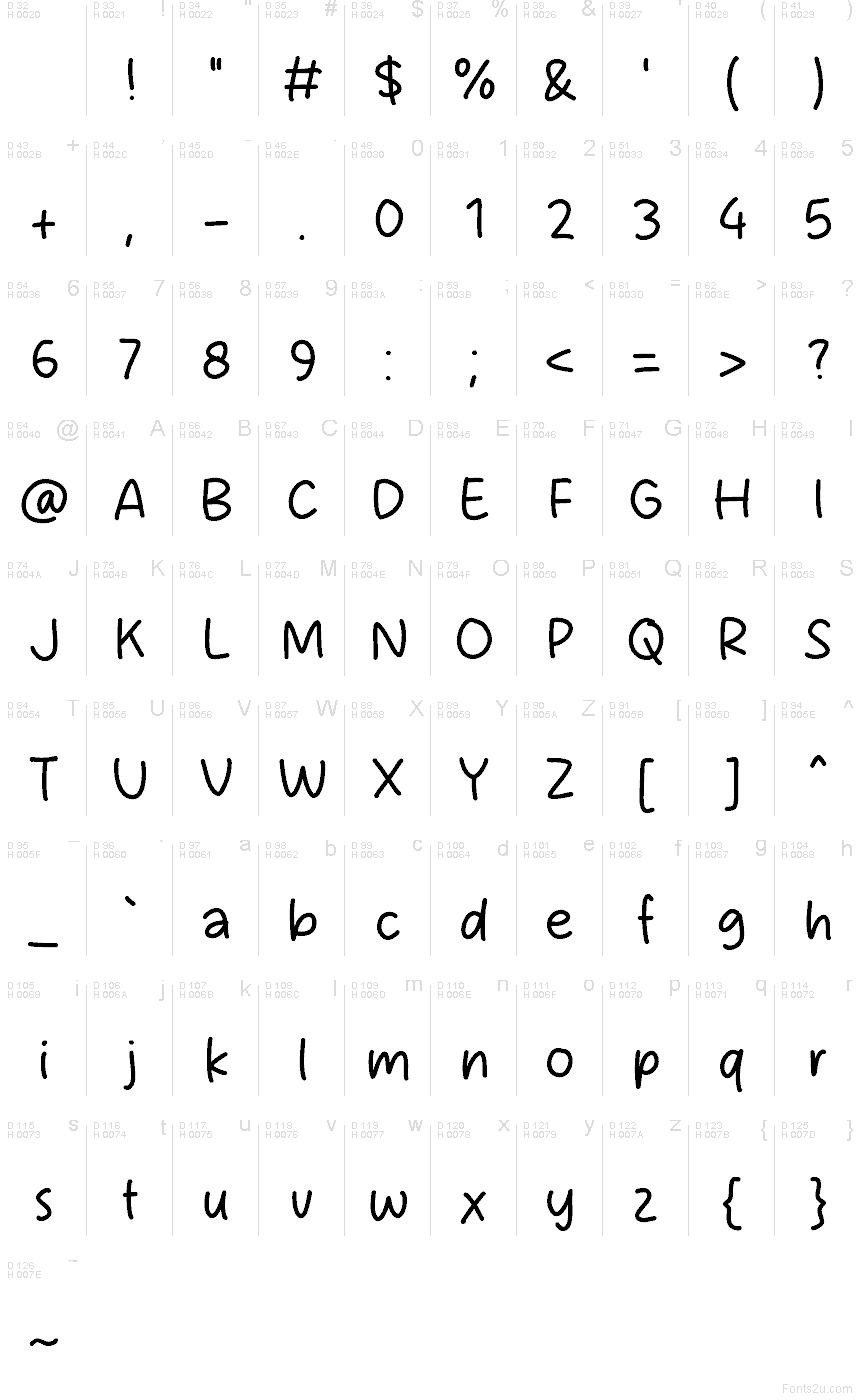
Honey Brown
Honey Brown font by MJType is a free handwritten font that finally hits that sweet spot between casual and clean. Its rounded strokes feel like smooth marker on paper—friendly and approachable—yet the letters stay even, open, and easy to read at a glance. The gentle bounce and subtle tilt give it warmth without getting messy or childish, making it a reliable choice when you need handwriting that still looks polished.
Using Honey Brown, this free font shines on branding for cafes and bakeries, product packaging, quote graphics, social media posts, invitations, and cozy blog headers. The consistent rhythm of the letters keeps text blocks from feeling cluttered, even at smaller sizes. Pair it with a simple sans serif for body copy, and let Honey Brown handle names, headlines, and short phrases where you want personality to come through.